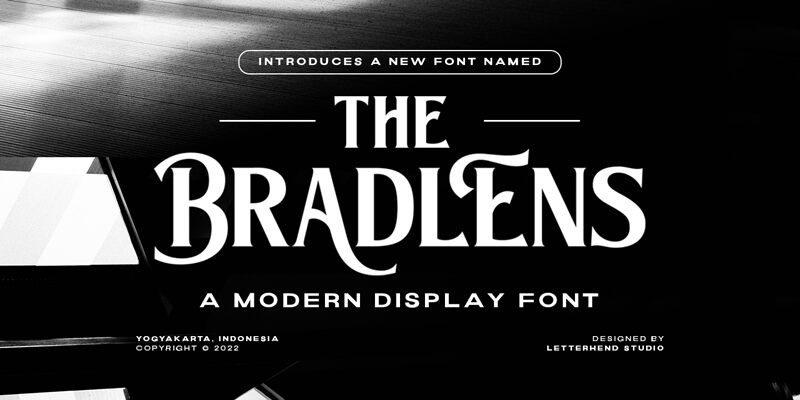
Bradlens, a creation by Letterhend Studio, is a serif font that exudes elegance with a modern twist. Its condensed form gives it a sophisticated edge, perfect for making strong statements in branding and editorial designs. The serifs bring a classic touch to its contemporary silhouette, striking an appealing balance between tradition and innovation.
This font's streamlined letterforms make it ideal for high-impact headlines and logos where space is at a premium but style can't be compromised. Bradlens stands out in luxury product packaging, fashion labels, and any context that calls for a touch of class with an efficient use of space. Its distinctive character ensures legibility while offering designers the opportunity to craft visually arresting compositions that speak of refinement and precision.